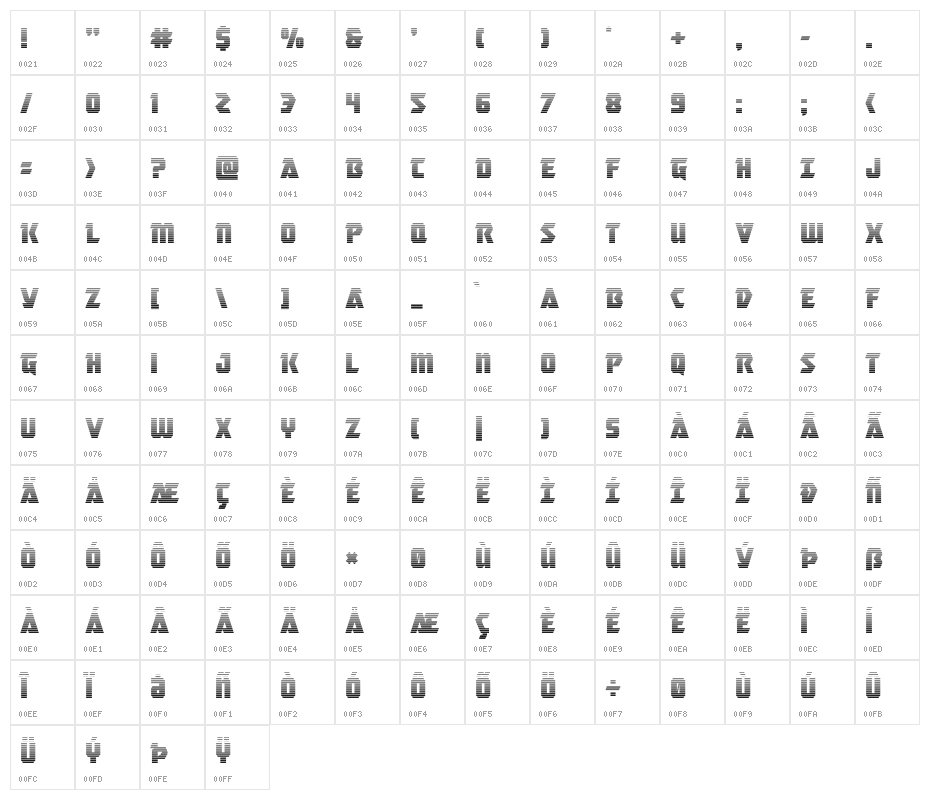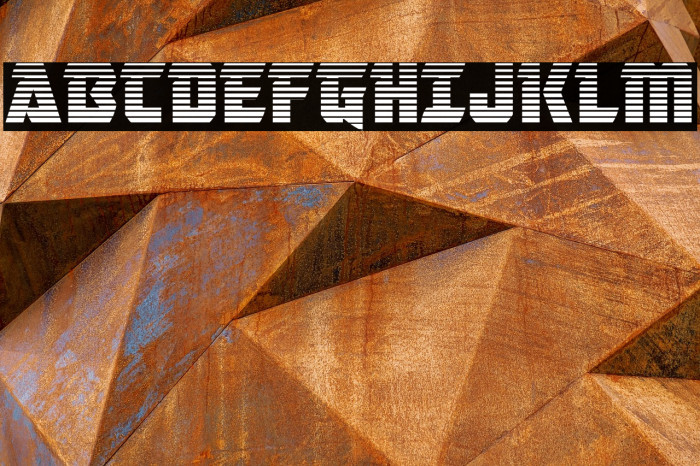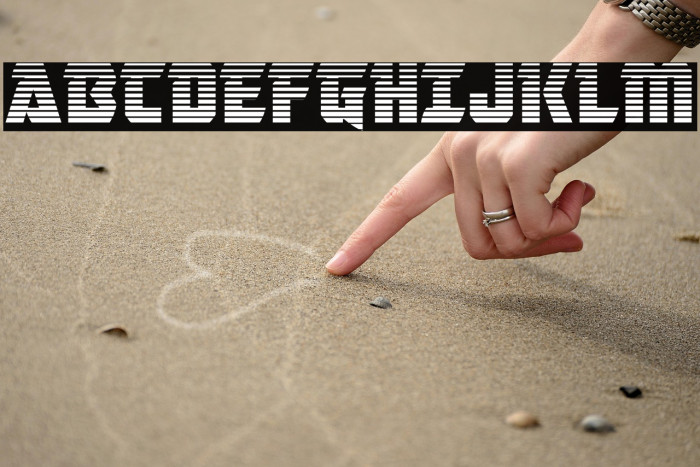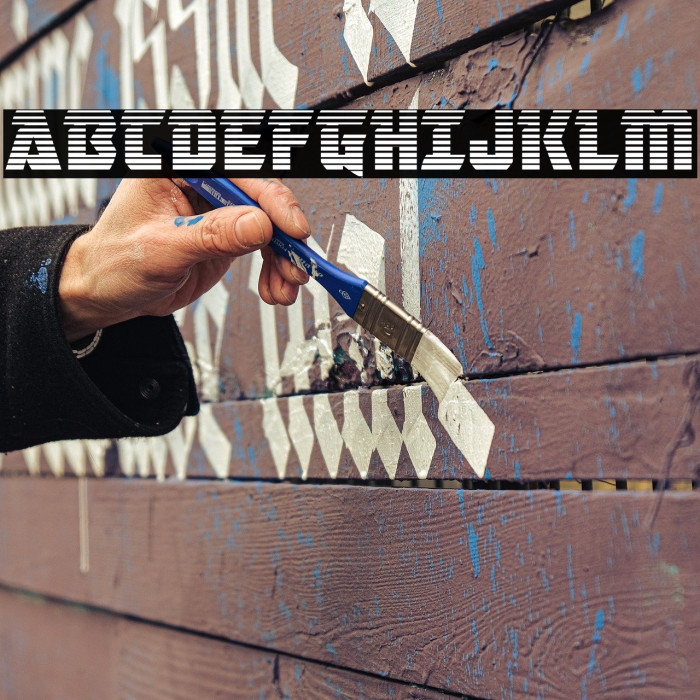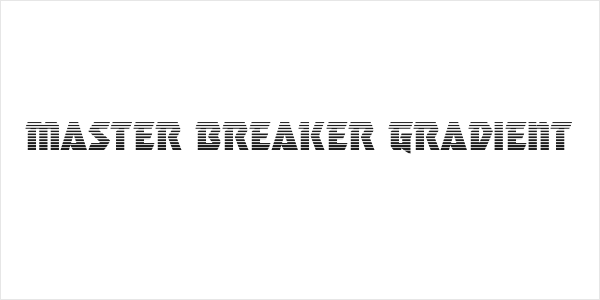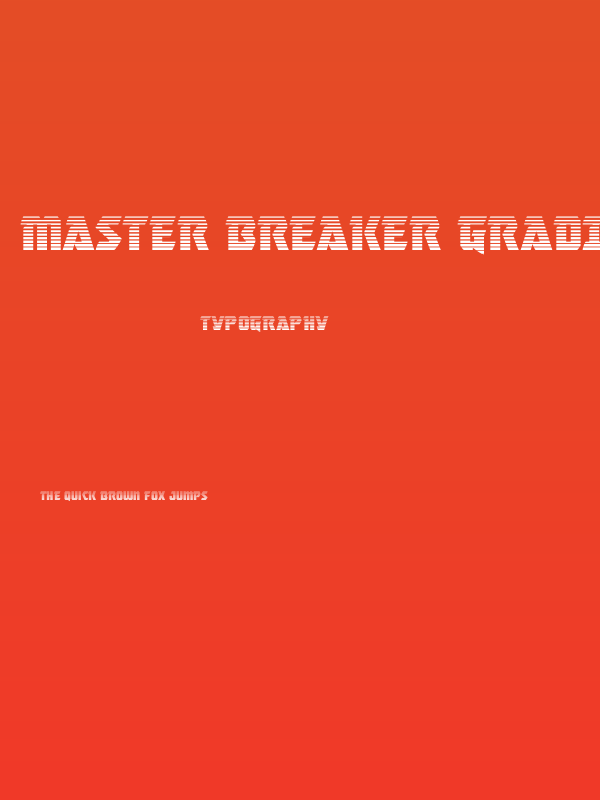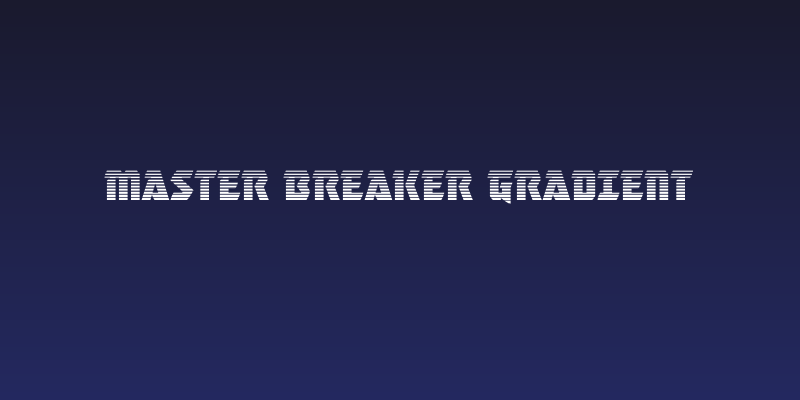
Master Breaker Gradient Font
Master Breaker Gradient Description
This font features a bold, futuristic design with a distinct striped pattern running horizontally through each character. The geometric shapes and sharp angles give it a modern and edgy appearance, making it stand out in any design. The uppercase and lowercase letters maintain a consistent style, with the numbers and special characters following suit. The font's unique aesthetic is ideal for projects that require a strong visual impact.
| Proposed Projects | Ideal for sci-fi themed designs, video game titles, posters, and branding that requires a modern and striking look. |